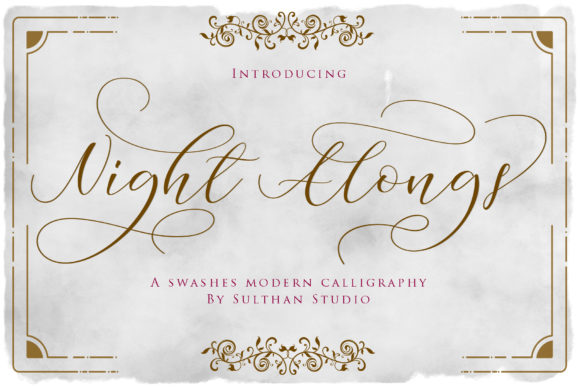
Ignite your creative spirit with Night Alongs Script Font, a stunning script font that will infuse your designs with a touch of elegance and originality. Crafted with impeccable care by the talented Sulthan Studio, Night Alongs is a visual masterpiece that will transform your words into captivating works of art.
Journey through the realm of enchanting possibilities with Night Alongs. Its meticulously crafted curves and delicate strokes evoke a sense of timeless beauty, while its distinctive character adds a dash of intrigue and allure to your projects. Whether you're a seasoned designer or just starting your creative journey, Night Alongs will effortlessly elevate your designs to new heights.
Step into a world where typography meets artistry. Night Alongs' captivating charm will leave an unforgettable impression on your audience. Its versatility knows no bounds, making it a perfect choice for a wide range of projects, from logos and branding to social media graphics and wedding invitations. With Night Alongs, the possibilities are endless.
Indulge in the beauty of Night Alongs and experience the joy of creating designs that resonate with your soul. Let its graceful lines guide you as you weave your creative magic, crafting visual masterpieces that speak volumes. Embrace the essence of artistic expression and let Night Alongs ignite your imagination.